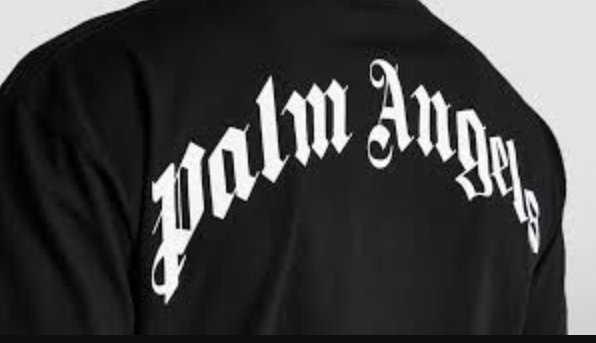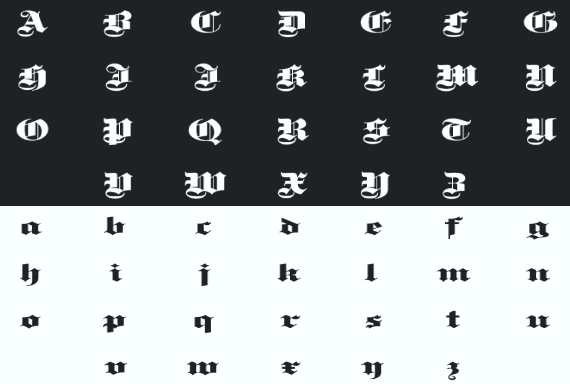
The Palm Angels font successfully embodies luxury streetwear by presenting users with an edgy, rebellious, and high-fashion aesthetic. The typography methods employed by Palm Angels on hoodies, T-shirts, and accessories have made the brand’s influence worldwide possible.
What font does Palm Angels use?
In 2016, Francesco Ragazzi started Palm Angels as an artistic director and photographer. On their website, it claims that their logo is a customized design inspired by blackletter typography, and associated with 19th-century Gothic, Fette Gotisch typeface, as well as digital revivals such as Gothique and Fette Gotisch Pro. Mostly, it refers to architectural blackletters as retail script.
The Inspiration Behind the Font
The Palm Angels font is heavily influenced by Blackletter typography, a style associated with Gothic and medieval script. Palm Angels adopts Blackletter fonts because they symbolize rebellious attitudes toward authority as well as underground movements just like the brand itself represents.
The Palm Angels logo uses a specific typeface that replicates the classic appearance of Old English or Fraktur-style fonts that previously appeared in both historical documents and vintage signage and tattoos. This choice adds a unique juxtaposition—combining modern streetwear with classic typography.
Key Features: Palm Angels Font
- Blackletter Aesthetic:
- The sharp, angular letterforms give it a vintage yet contemporary feel.
- Reminiscent of medieval script, adding a touch of heritage and rebellion.
- Bold and High-Contrast Design:
- Thick strokes and dramatic curves enhance legibility, making the logo stand out on clothing and accessories.
- Gothic and Streetwear Fusion:
- Bridges the gap between historical calligraphy and modern fashion, making it a staple in luxury streetwear.
- Versatility in Branding:
- Works well on apparel, accessories, and digital media, ensuring a consistent brand image.
Applications: Palm Angels Font
1. Fashion & Apparel
- The font is predominantly used in Palm Angels’ branding on hoodies, T-shirts, and caps.
- The oversized prints and embroidered versions of the font reinforce the brand’s high-end, urban appeal.
2. Logo Design & Branding
- Many high-end and streetwear brands have drawn inspiration from the Palm Angels font to create a similar aesthetic.
- The luxury-meets-rebellion vibe makes it ideal for brands looking to attract a fashion-conscious, youth-driven audience.
3. Social Media & Digital Content
- Influencers, graphic designers, and branding experts use Palm Angels-inspired typography in digital marketing campaigns.
- The dramatic look adds boldness to Instagram posts, website headers, and advertisements.
4. Merchandise & Accessories
- Beyond clothing, the font appears on phone cases, tote bags, and sneakers.
- The dramatic and classic letterforms add a unique identity to branded products.
Alternatives: Palm Angels Font
If you’re a designer looking for a font similar to Palm Angels, here are some alternatives:
- A classic Blackletter typeface with intricate details.
- Perfect for designers aiming to capture the old-school gothic essence.
- One of the most widely recognized Fraktur-style fonts.
- Often used in tattoos, historical manuscripts, and vintage-inspired branding.
3. Canterbury
- A simpler Blackletter font with cleaner edges.
- Works well for projects requiring a modern take on medieval typography.
- A more ornate and artistic version of Blackletter fonts.
- Best for bold branding and impactful merchandise design.
How to Use the Palm Angels Font
If you’re a graphic designer or brand owner inspired by Palm Angels typography, here’s how to use similar fonts effectively:
1. Choose the Right Font
- Opt for high-quality Blackletter fonts to achieve a premium, professional look.
- Ensure the font aligns with the brand’s personality and target audience.
2. Experiment with Color and Contrast
- Palm Angels often uses black-and-white typography for maximum impact.
- Consider metallic, neon, or distressed textures for a more unique approach.
3. Pair it with Modern Elements
- Combine the gothic-style font with modern sans-serif or minimalistic elements.
- Balancing classic typography with contemporary layouts can create a compelling design.
4. Use It for Bold Statements
- Blackletter fonts work best for logos, headlines, and key branding elements.
- Avoid using them for long paragraphs as they can be difficult to read in body text.
Conclusion
The Palm Angels font functions as more than visual text since it represents revolutionary style paired with luxury lifestyle combined with counter-trend movements. Fashion designers recognize the Palm Angels font as a distinctive face because its Blackletter roots interact with streetwear elements to create one of today’s most recognizable fonts.
All design professionals including graphic designers and fashion entrepreneurs and typography fans can use the Palm Angels font to produce eye-catching designs with a strong impact. Discover Blackletter fonts for designs which present historical elements combined with current rebellious style if you want similar effects.